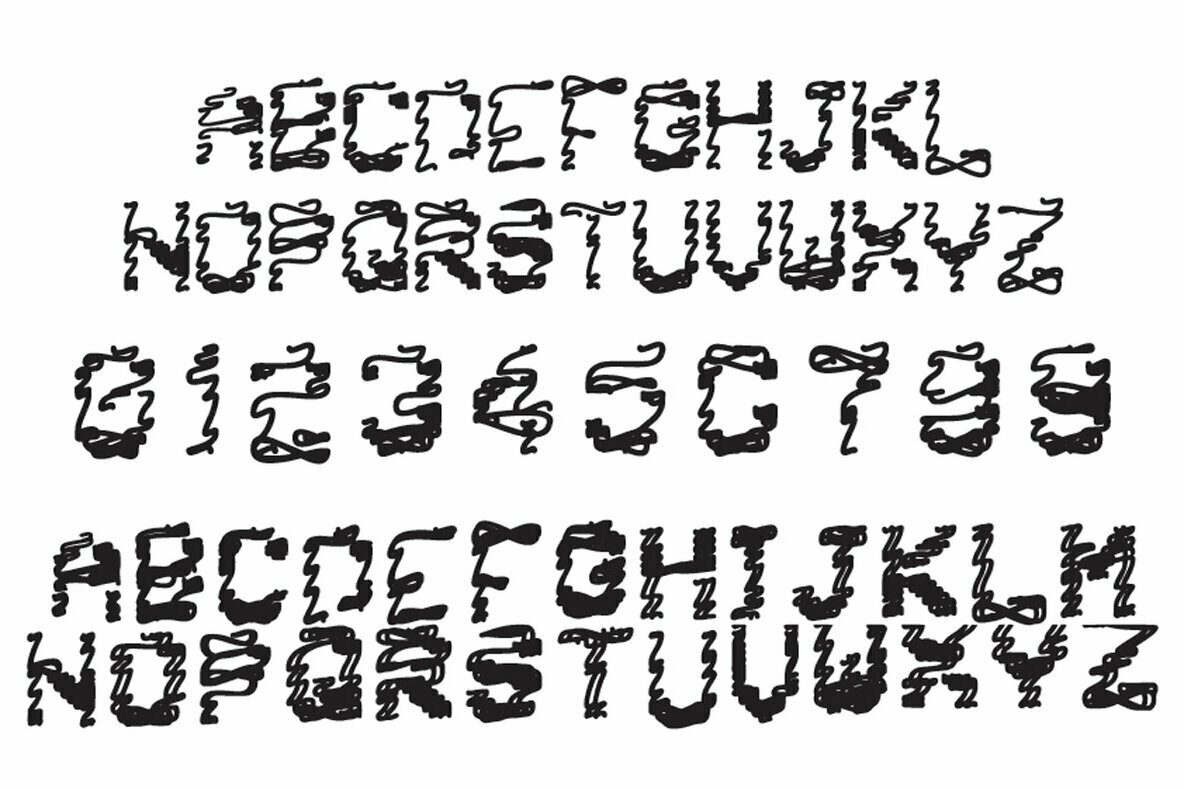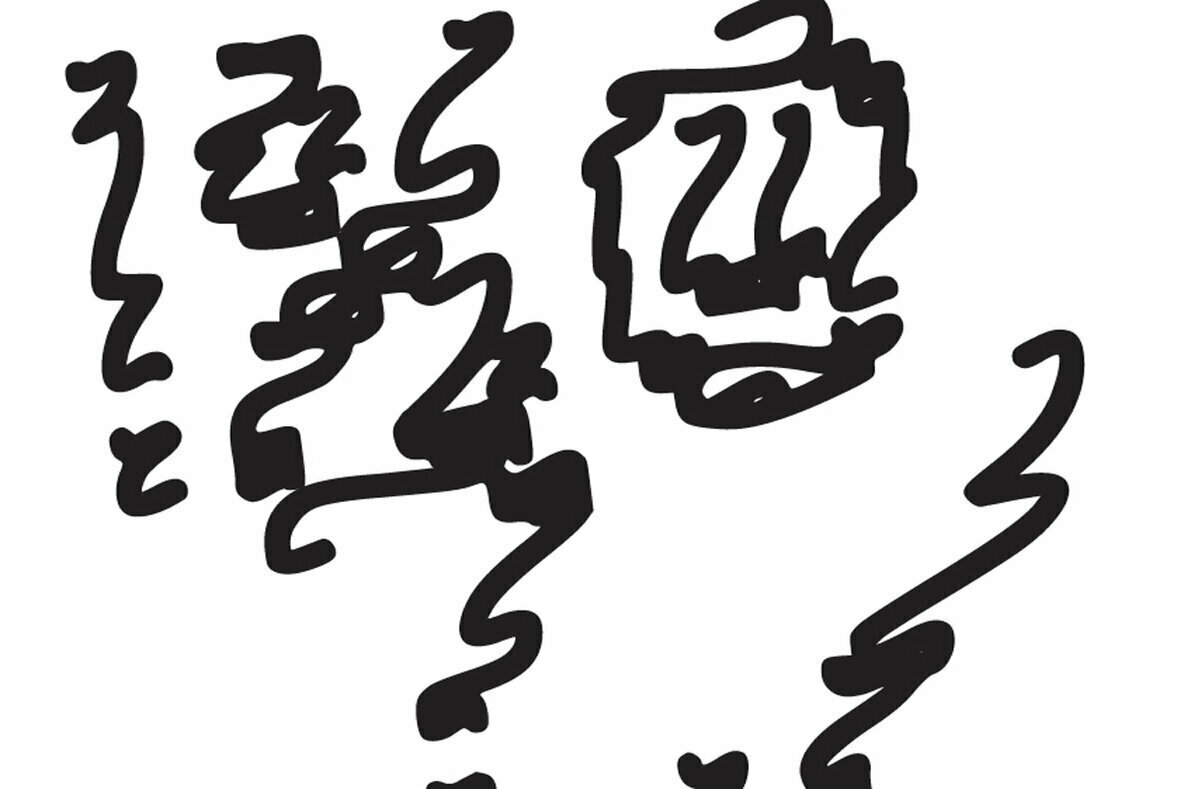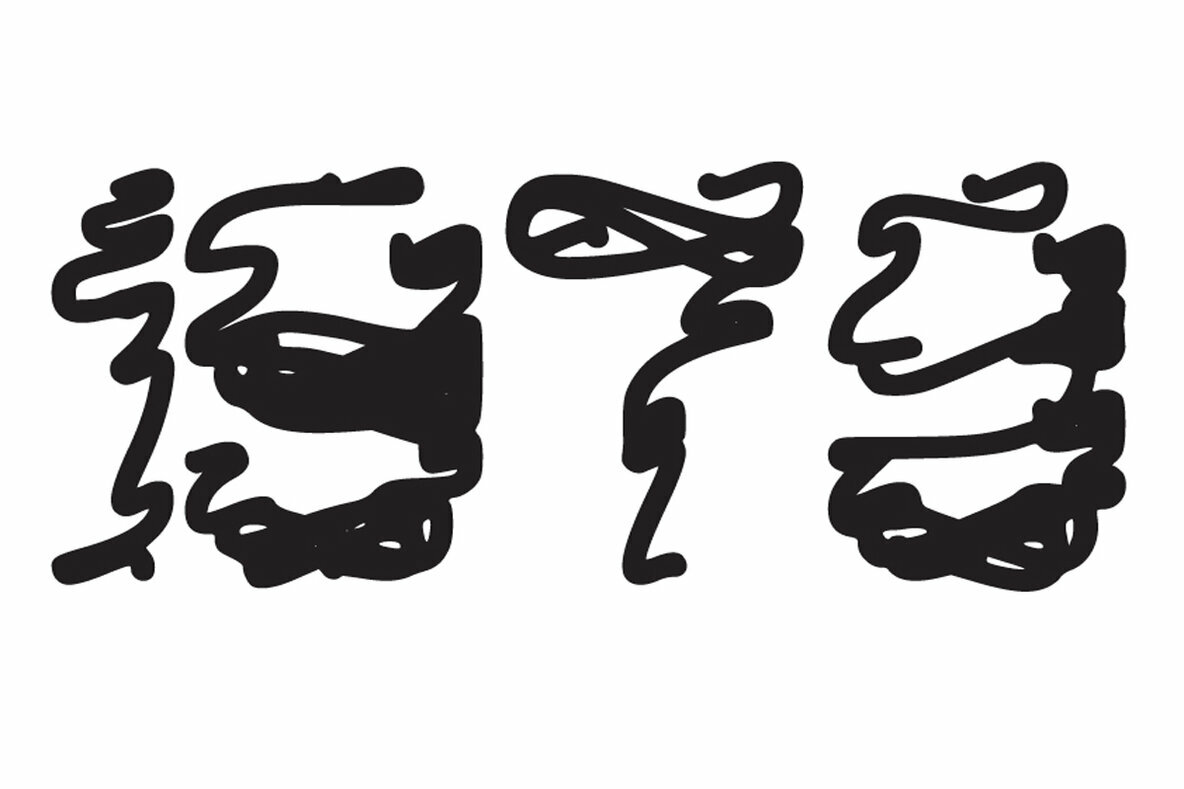
Wiggle Sketch Font
Wiggle Sketch
Wiggle Sketch is a messy and playful display font. If you are looking for a highly effected font with great personality, this is the perfect font!